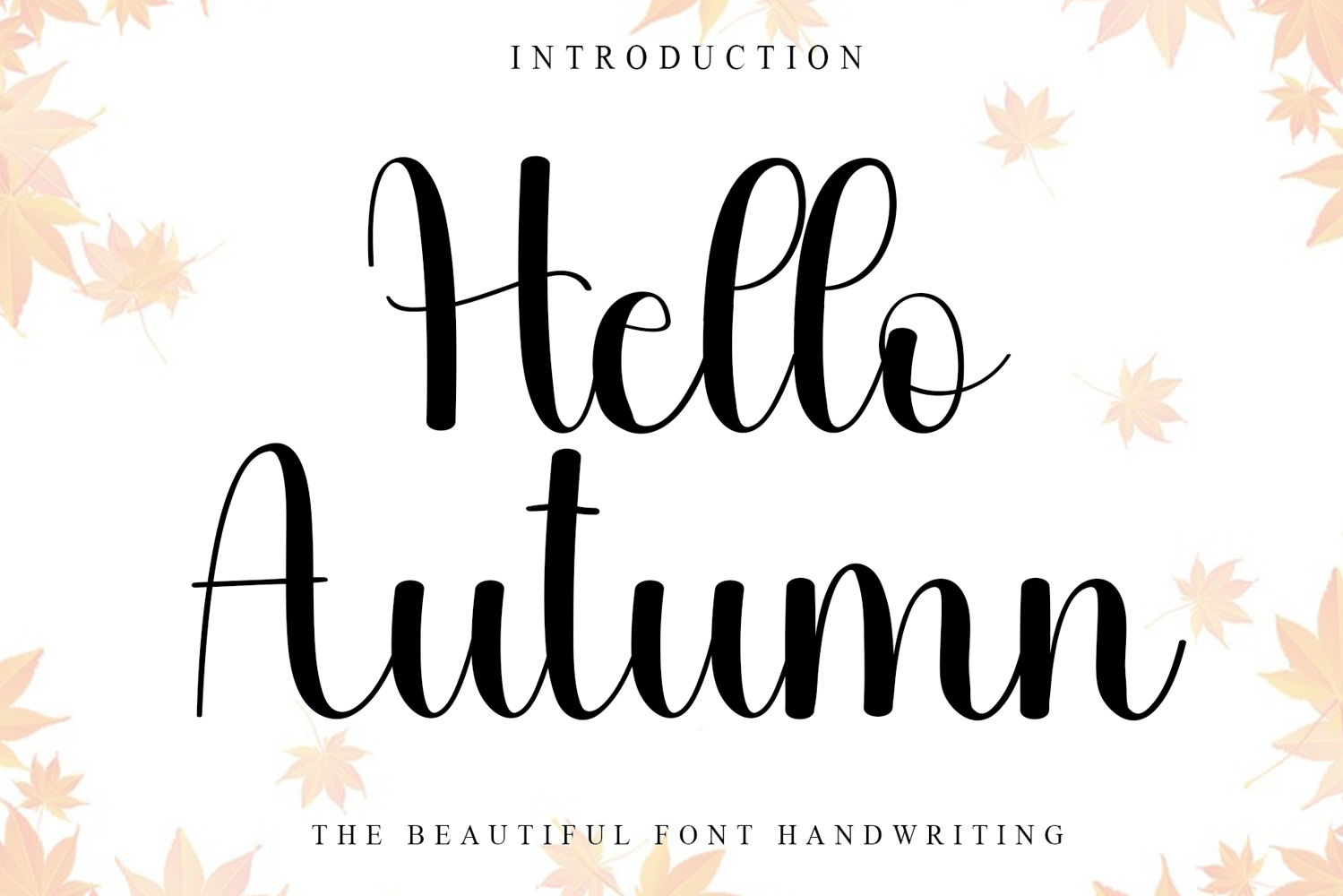
Hello Autumn
Hello Autumn is a beautiful and eye-catching font designed with a soft, unique touch. Its distinctive strokes give it a special character, making it meaningful and versatile for future use. With various characters, it’s perfect for design projects, crafts, and other creative works.